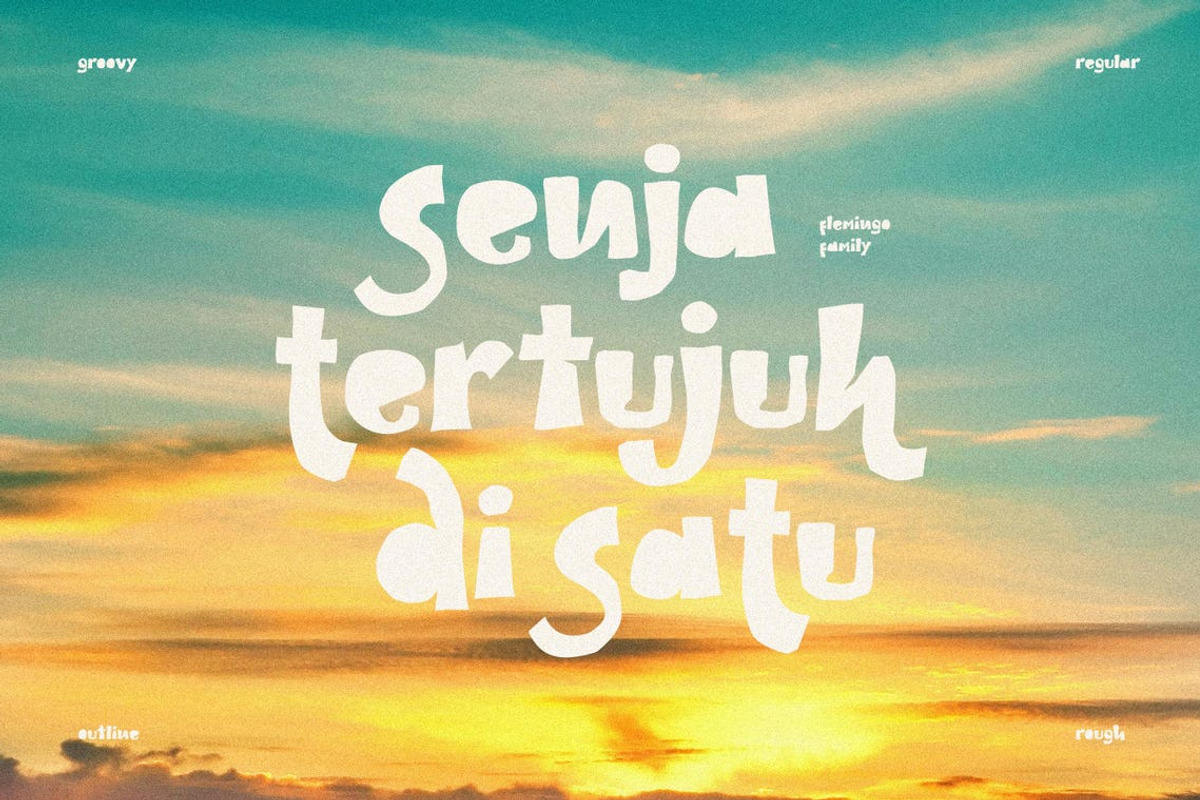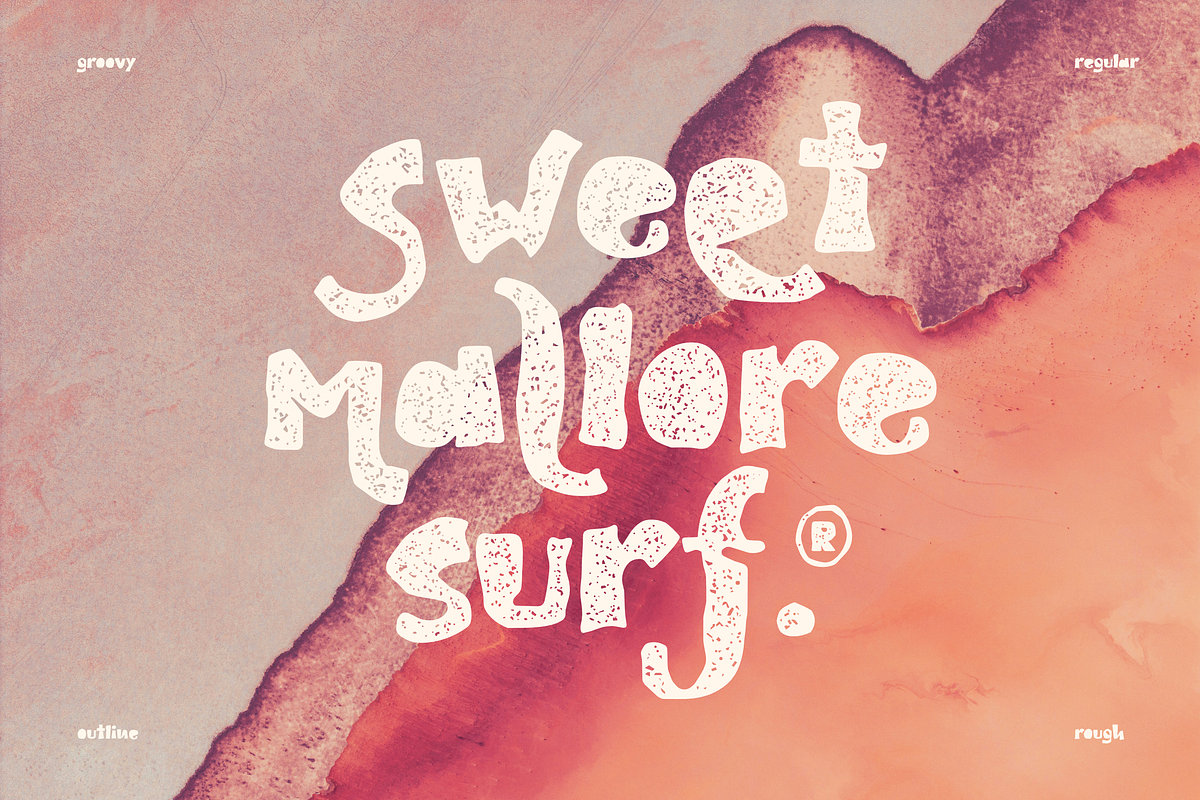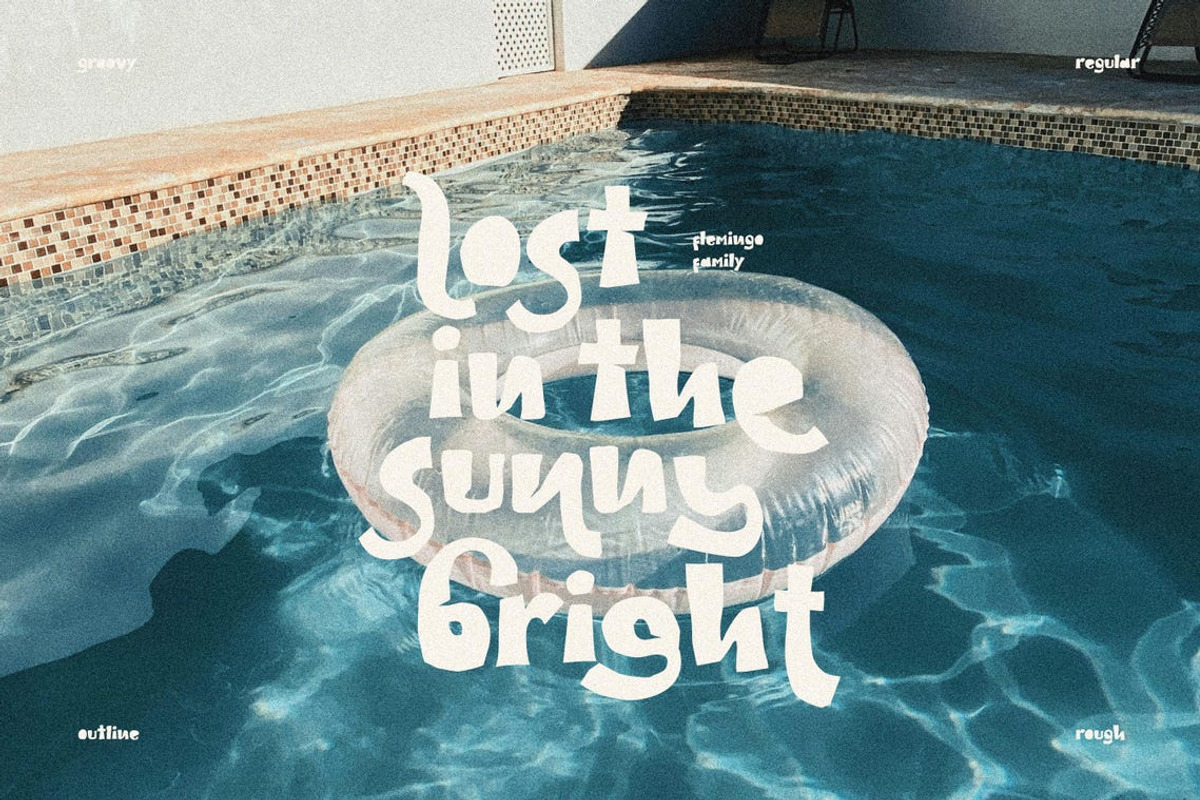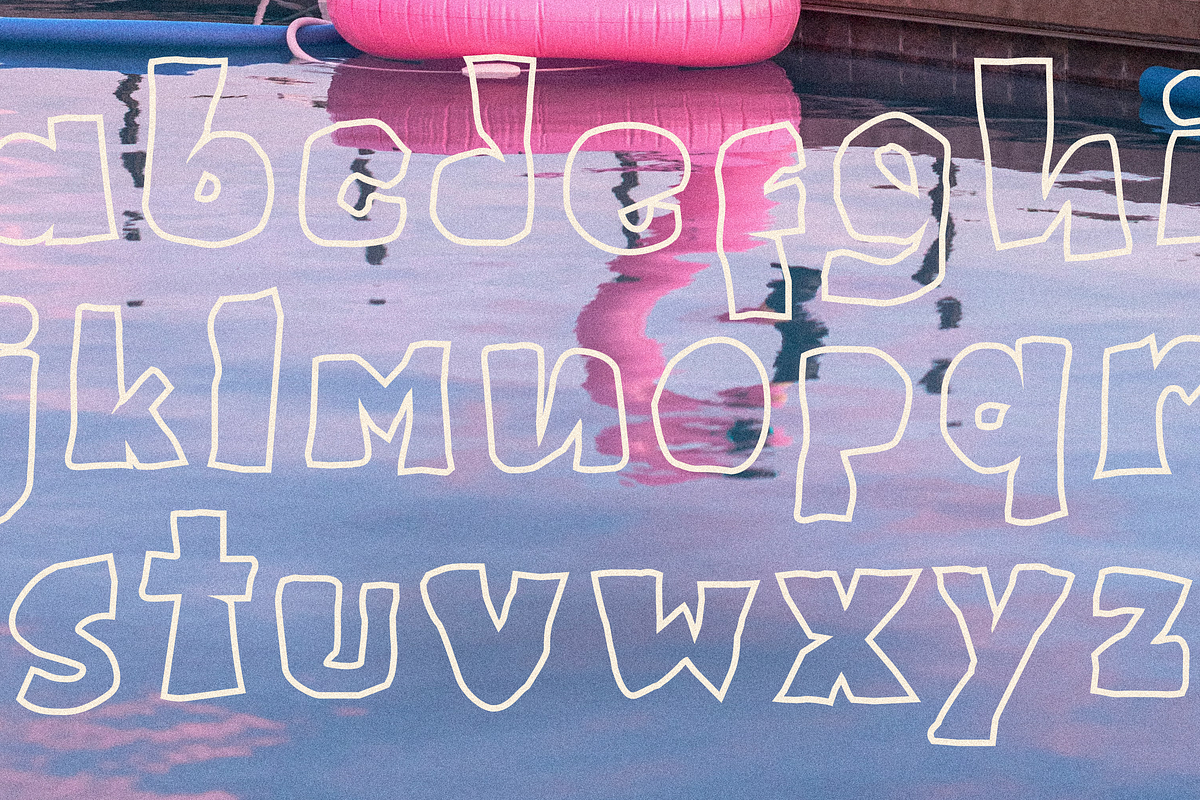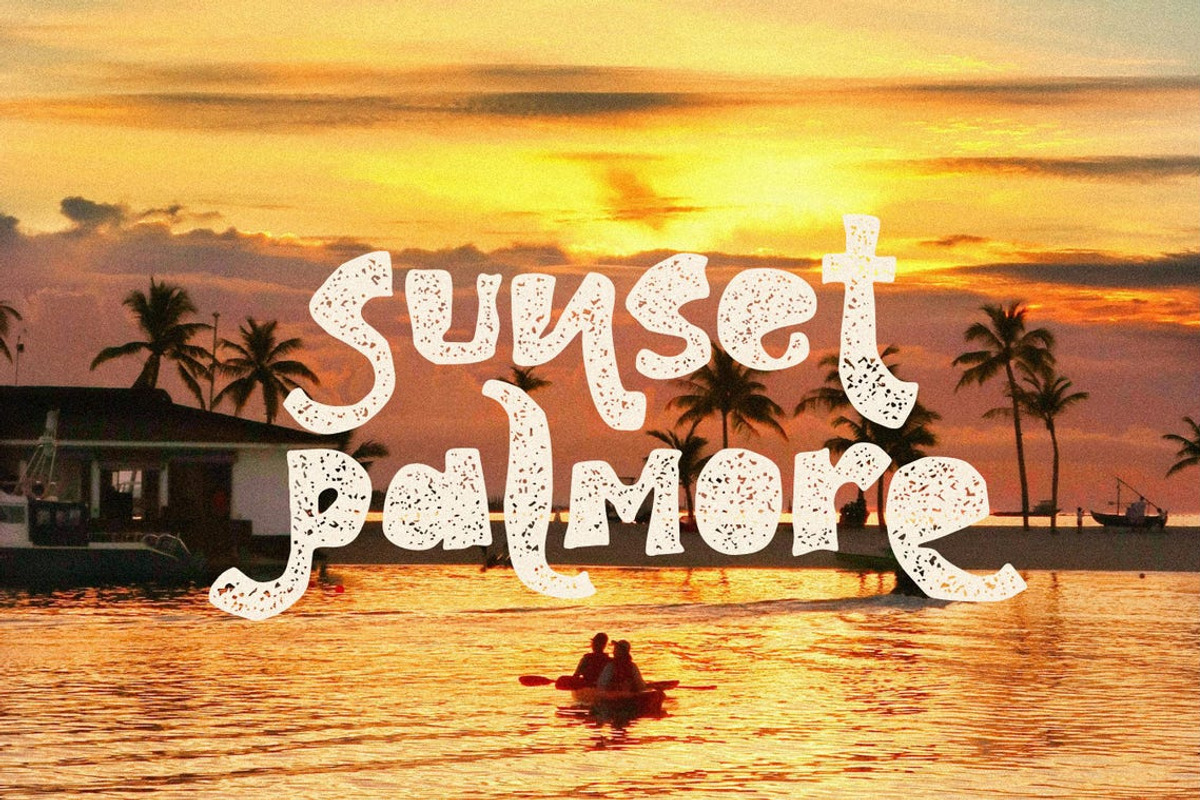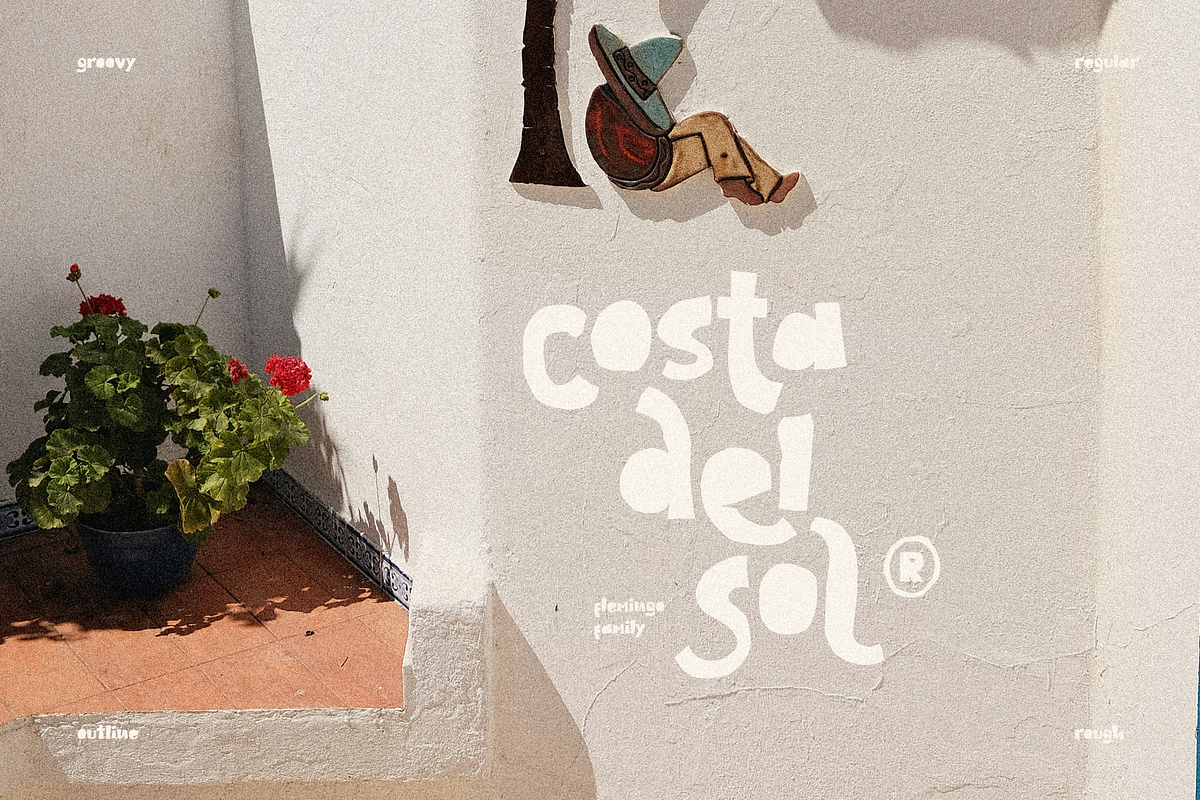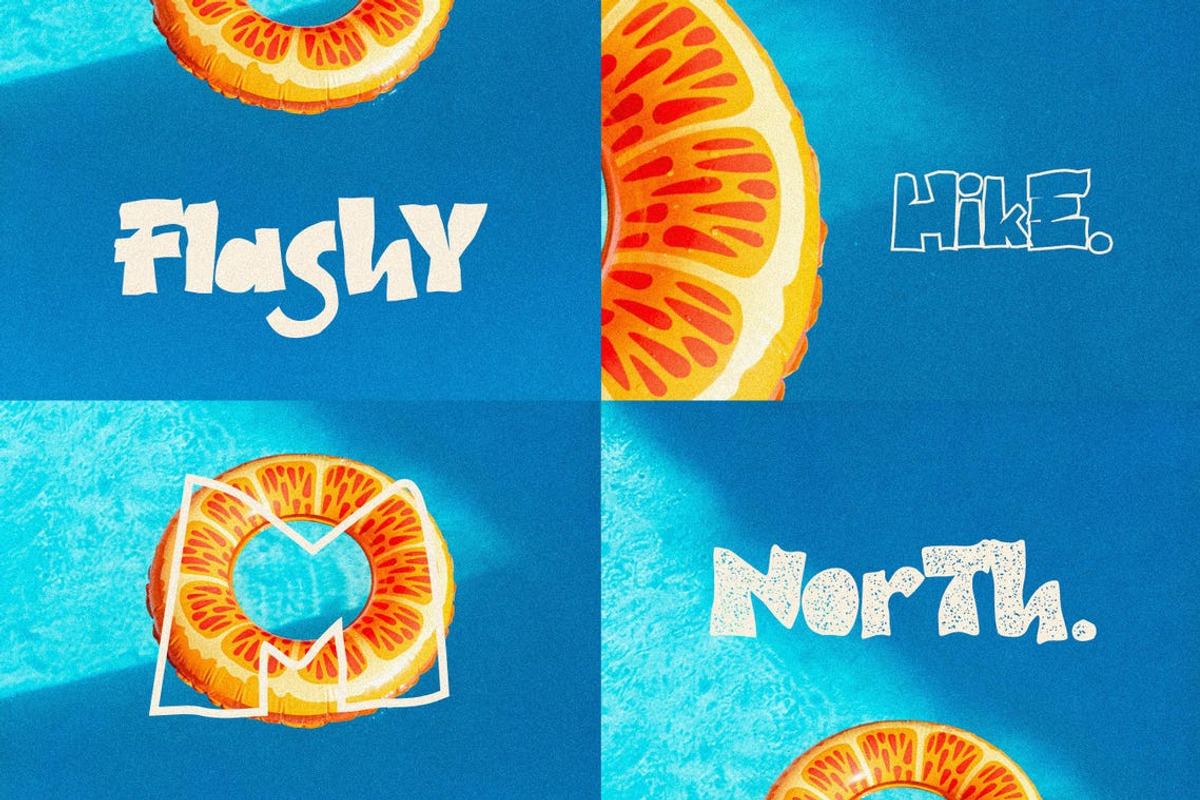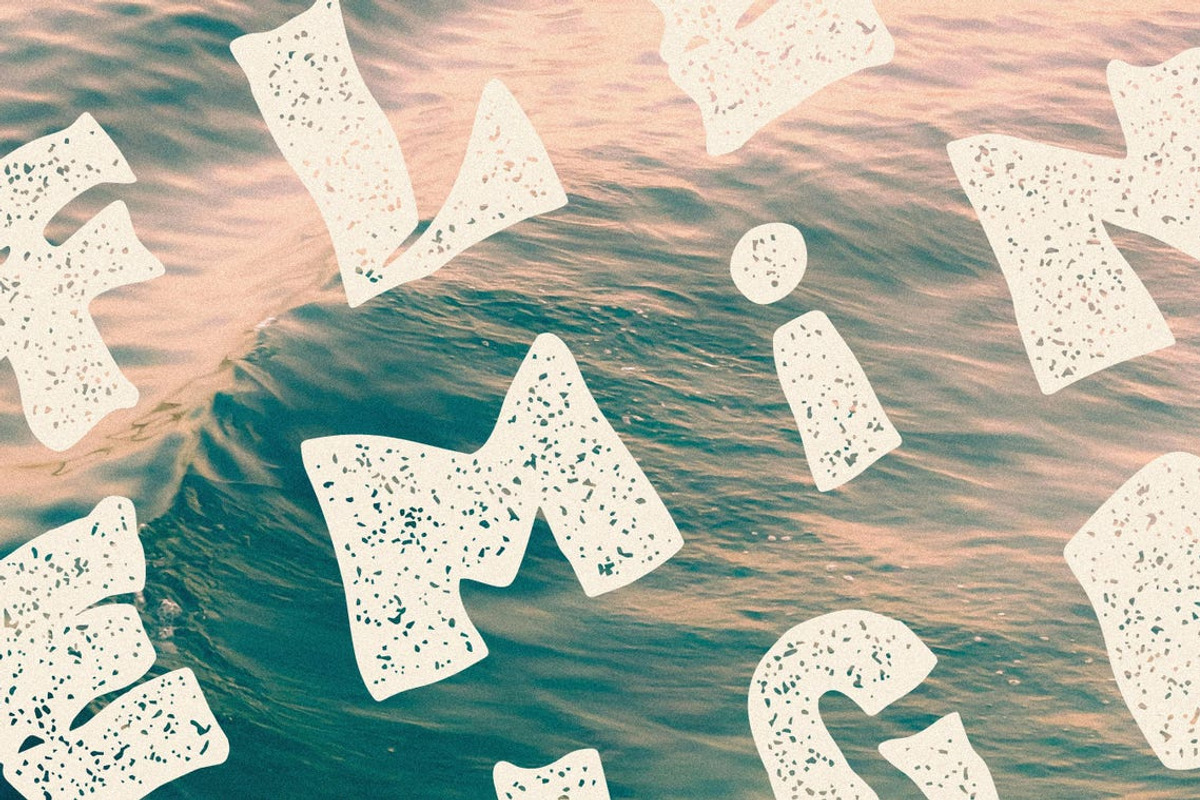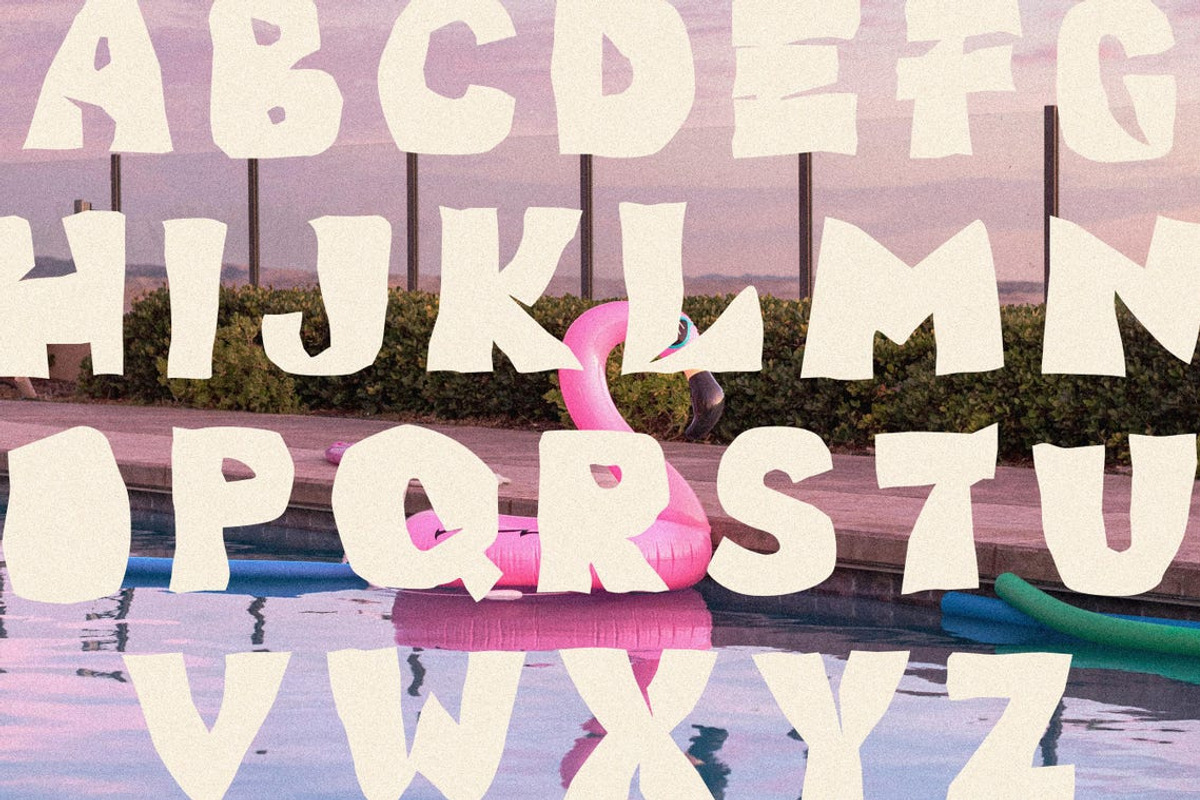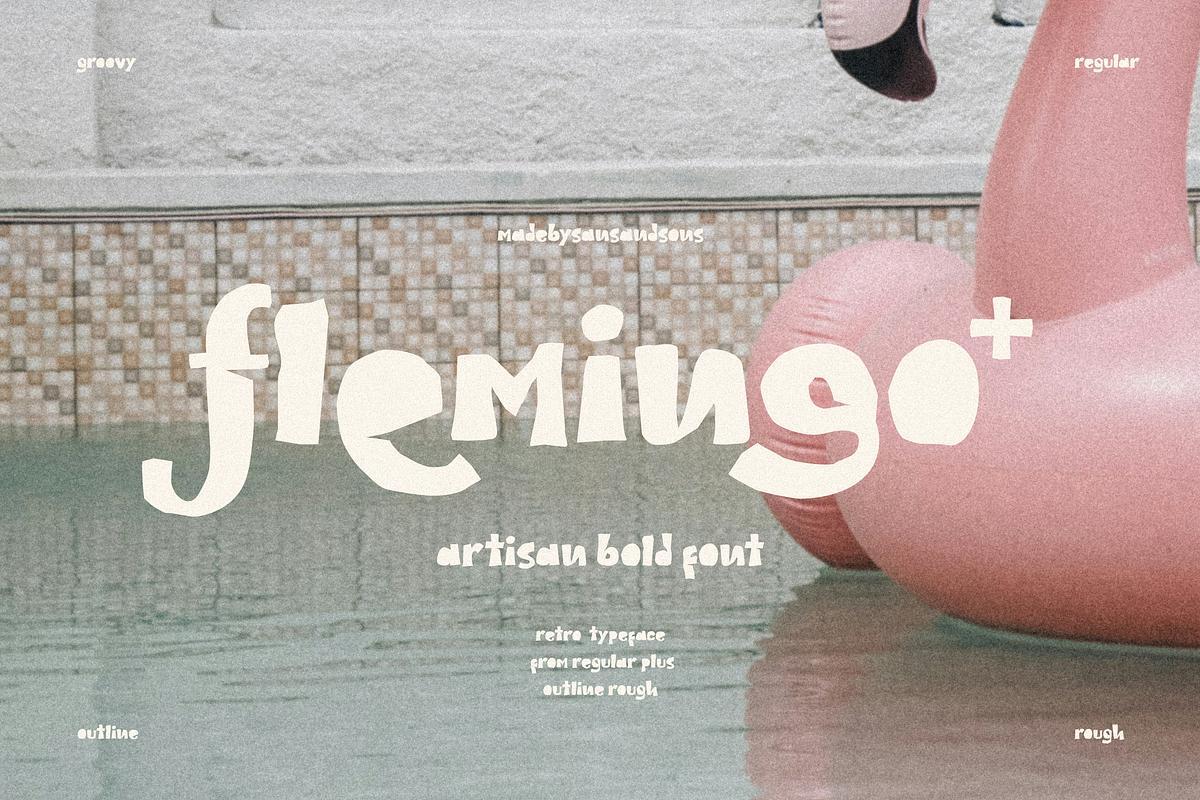
Flemingo Plus
Flemingo is a bold retro display font packed with playful curves and expressive letterforms. Inspired by vintage aesthetics with a fresh artistic twist, it brings a distinctive personality that instantly grabs attention.
Available in Regular, Outline, and Rough styles, Flemingo gives you the creative freedom to mix clean, outlined, and textured looks in a single type family. Whether you're building a nostalgic brand identity or designing bold headlines, Flemingo adds a fun, artistic, and unforgettable touch to every project. Designed to stand out, impossible to ignore.
- Flemingo Regular
- Flemingo Outline
- Flemingo Rough
Why You'll Love Flemingo
- Bold retro style with a modern artistic feel.
- Three versatile styles to expand your creative possibilities.
- Perfect for eye-catching headlines and memorable branding.
- Carefully crafted to bring personality and character to every design.
Designed for creatives who love bold ideas and unforgettable typography, Flemingo is more than just a font, it's a statement.